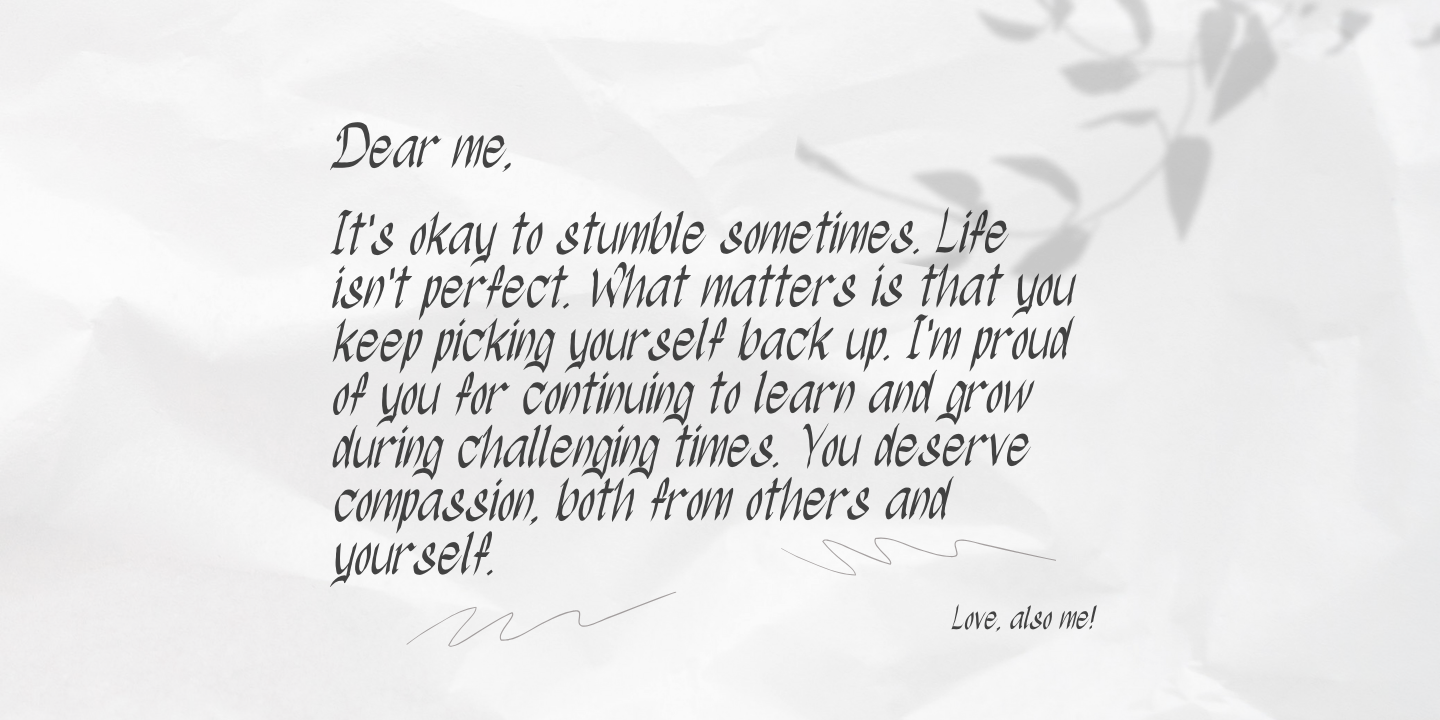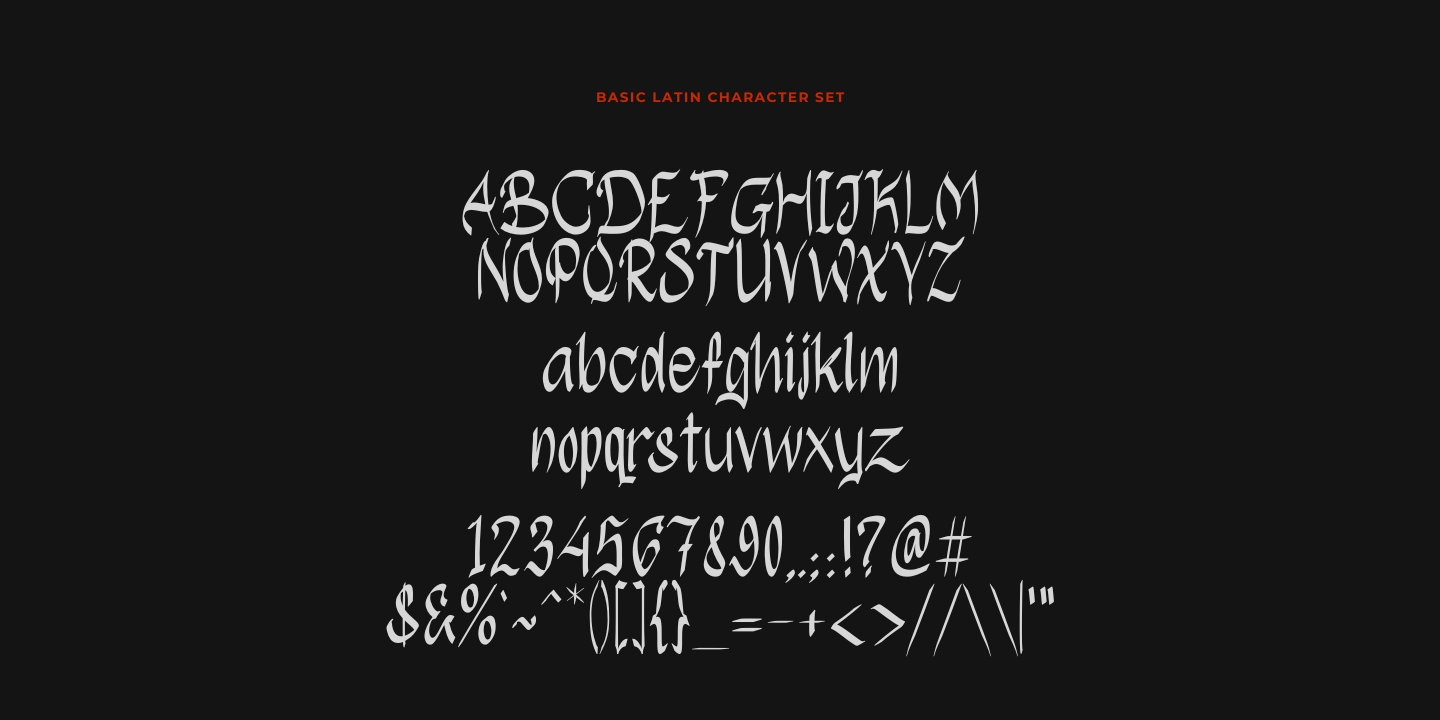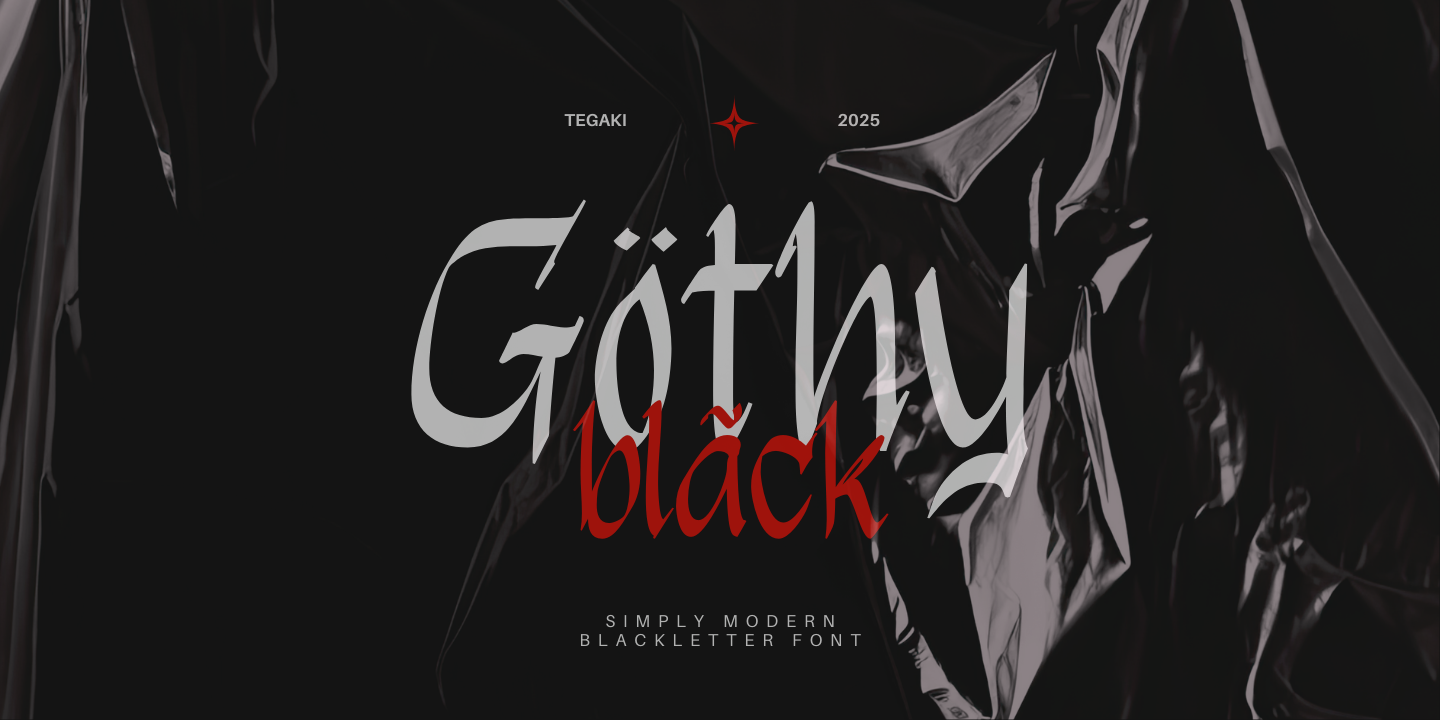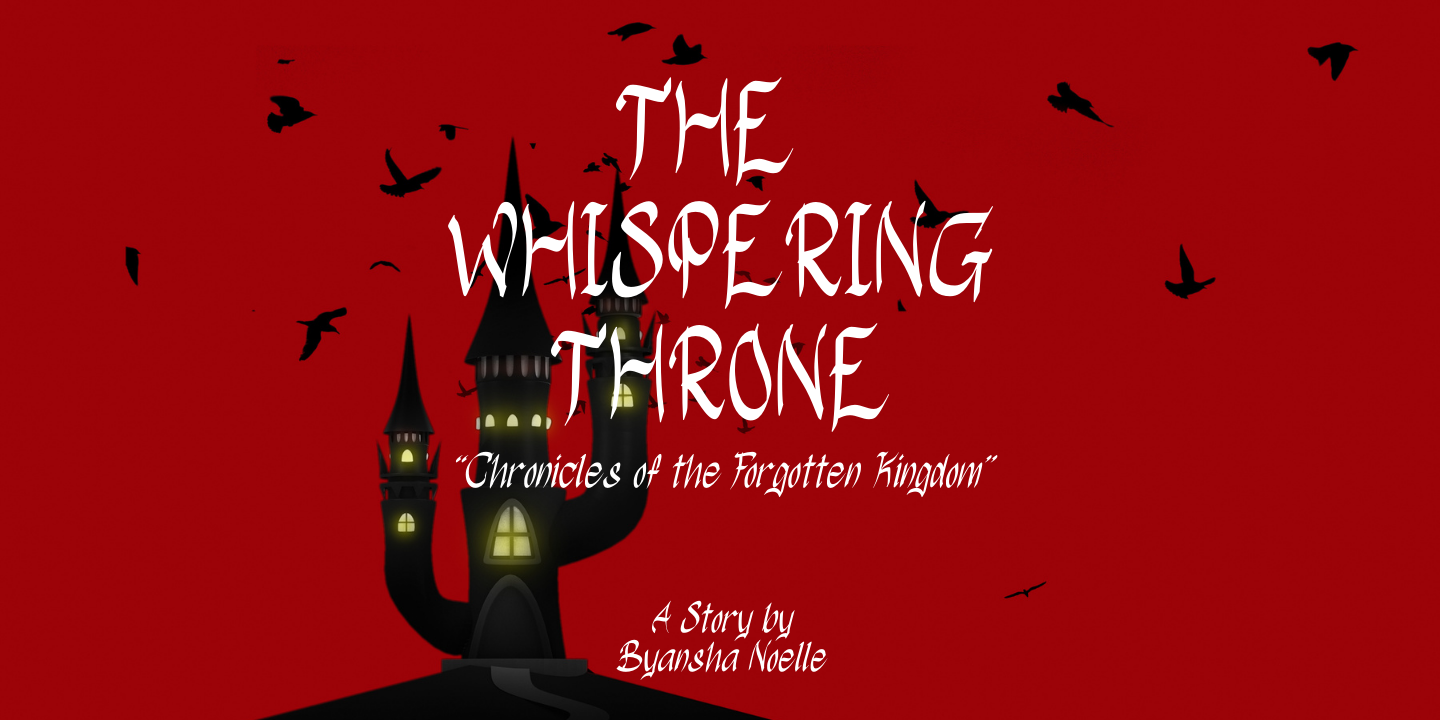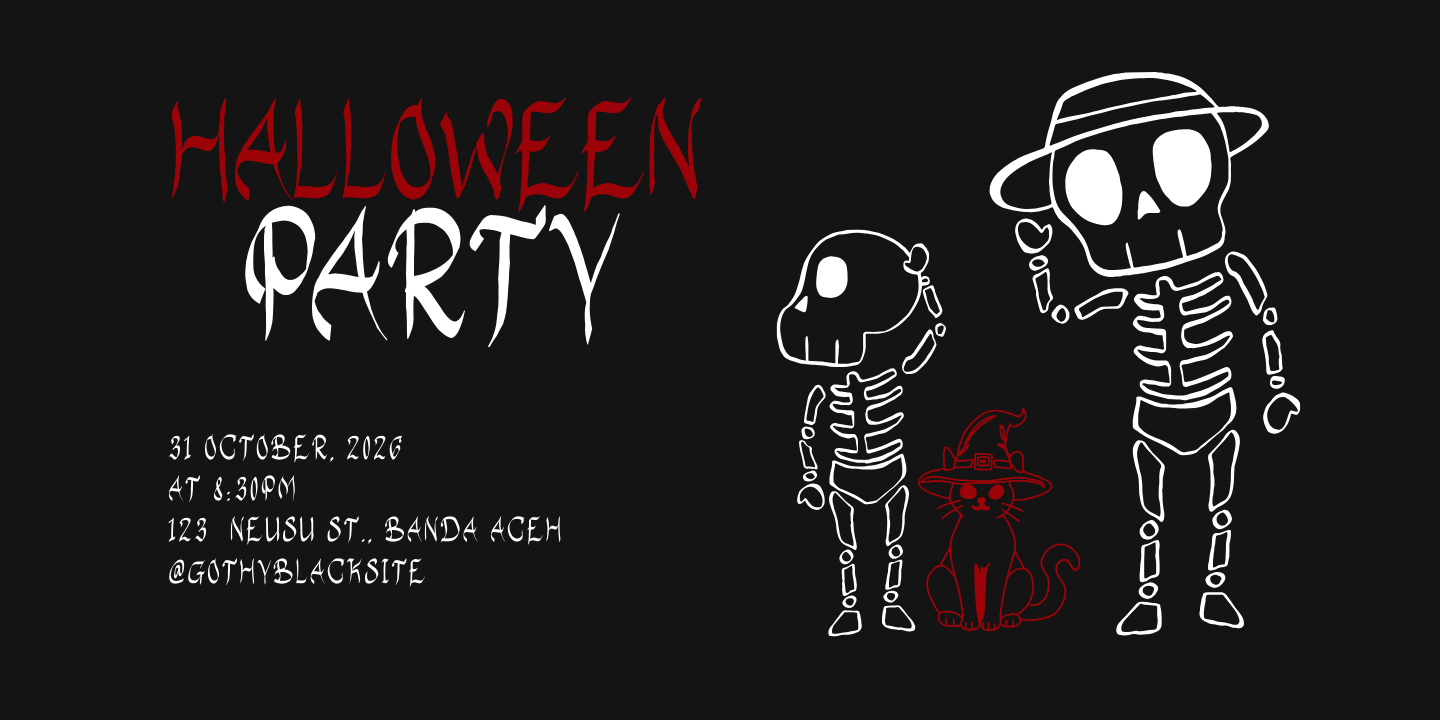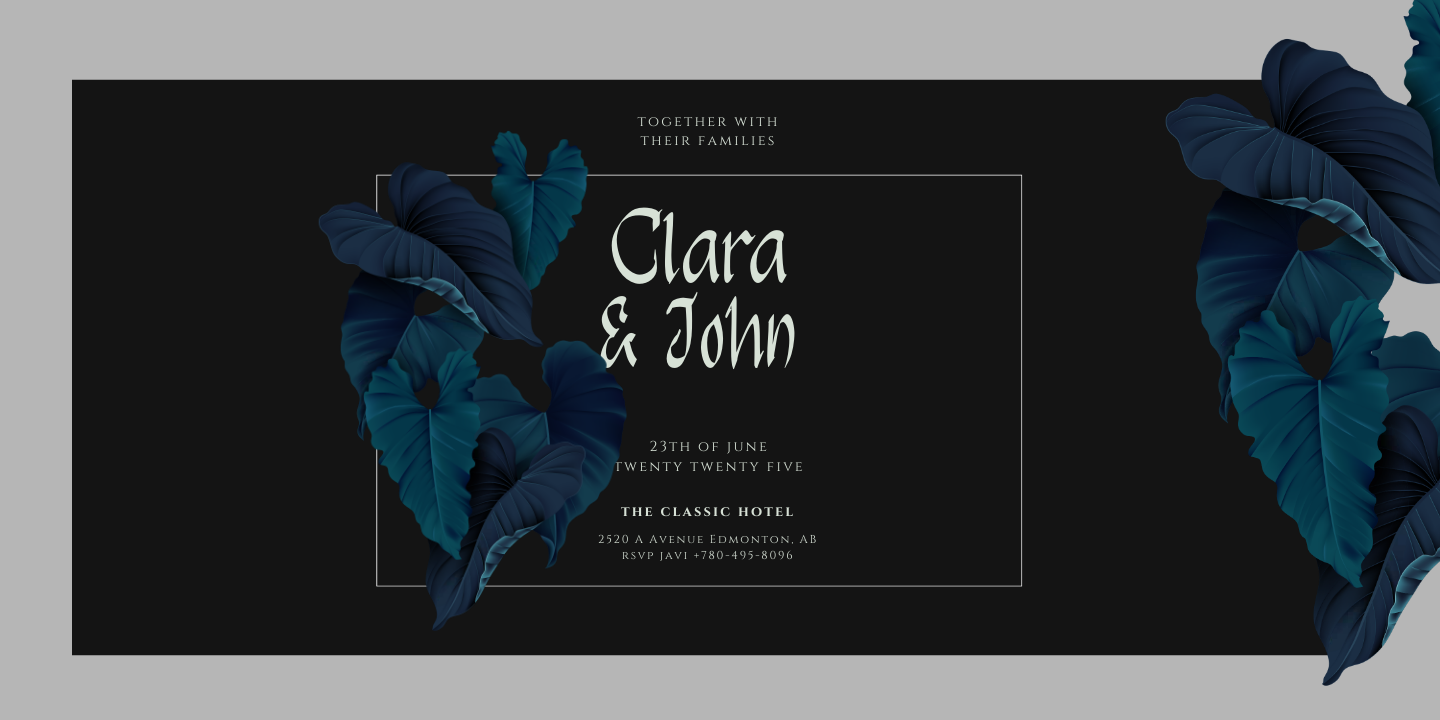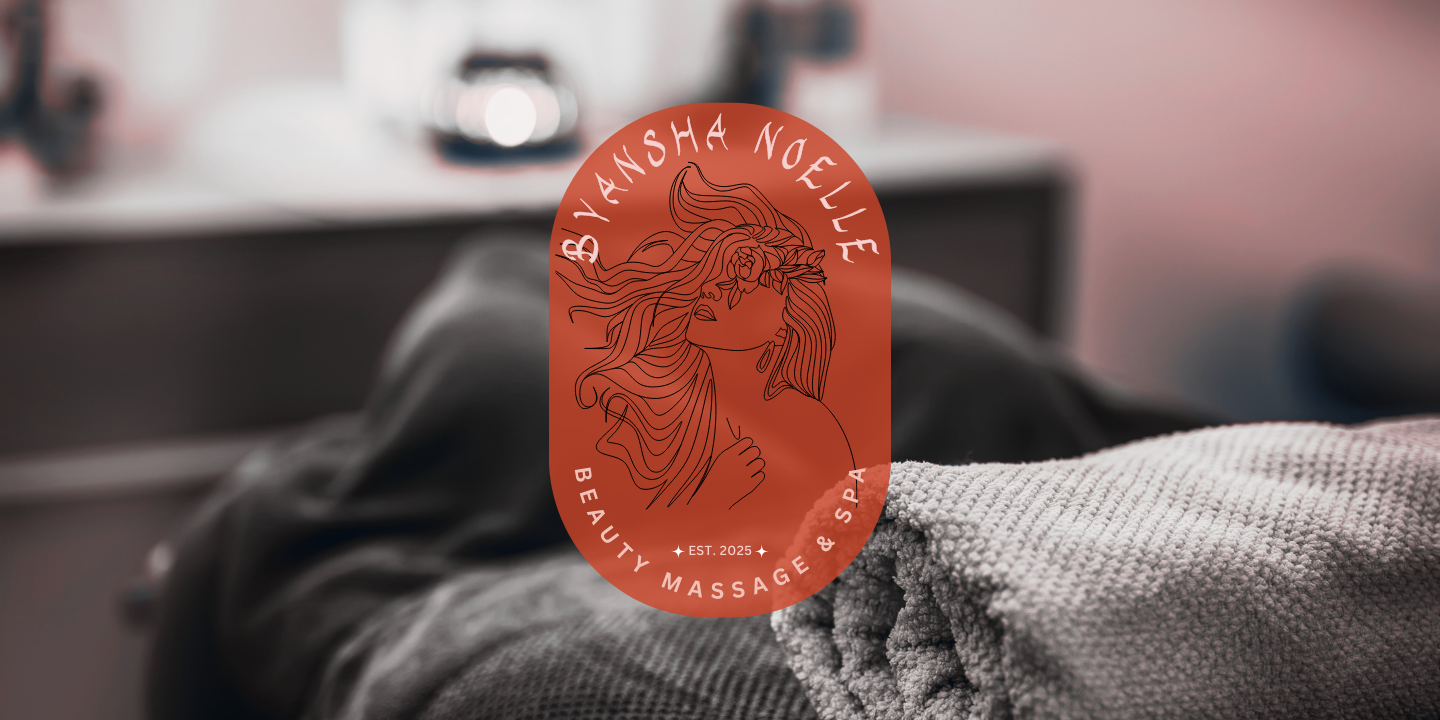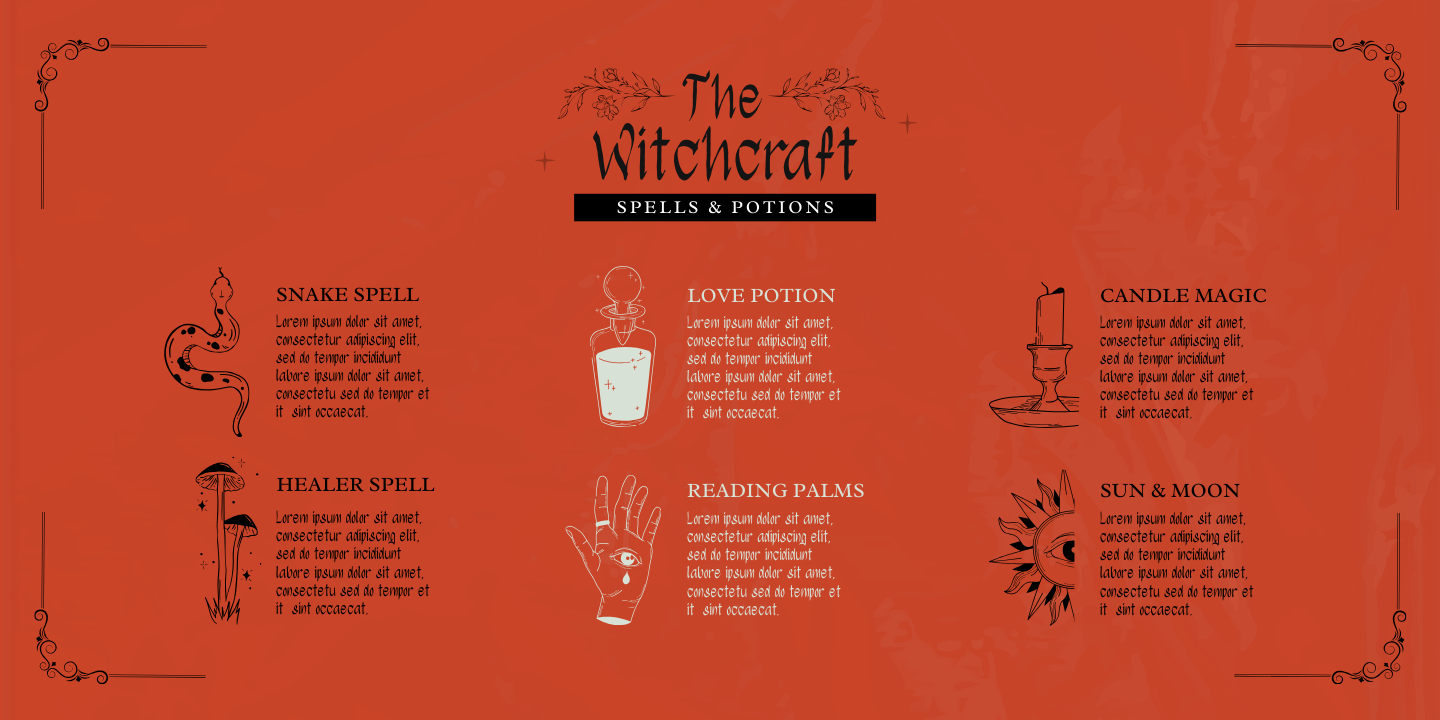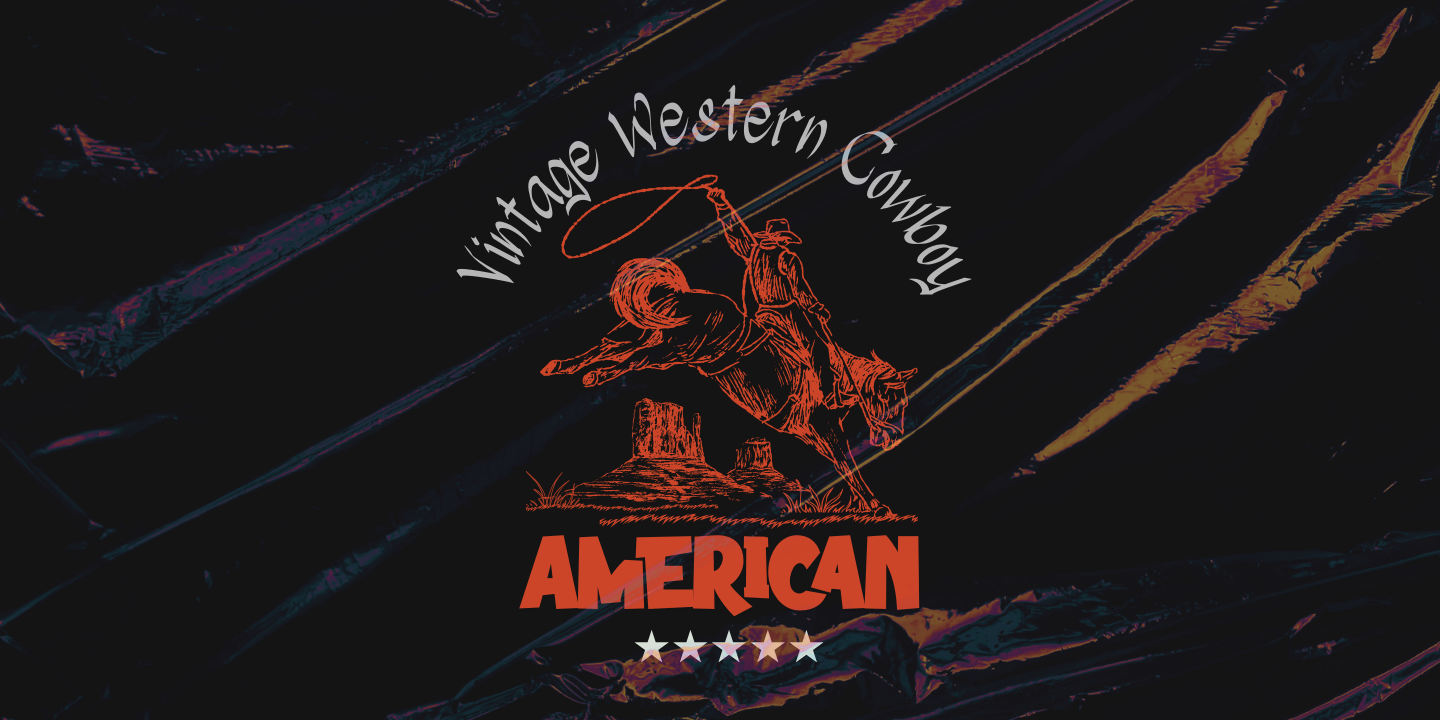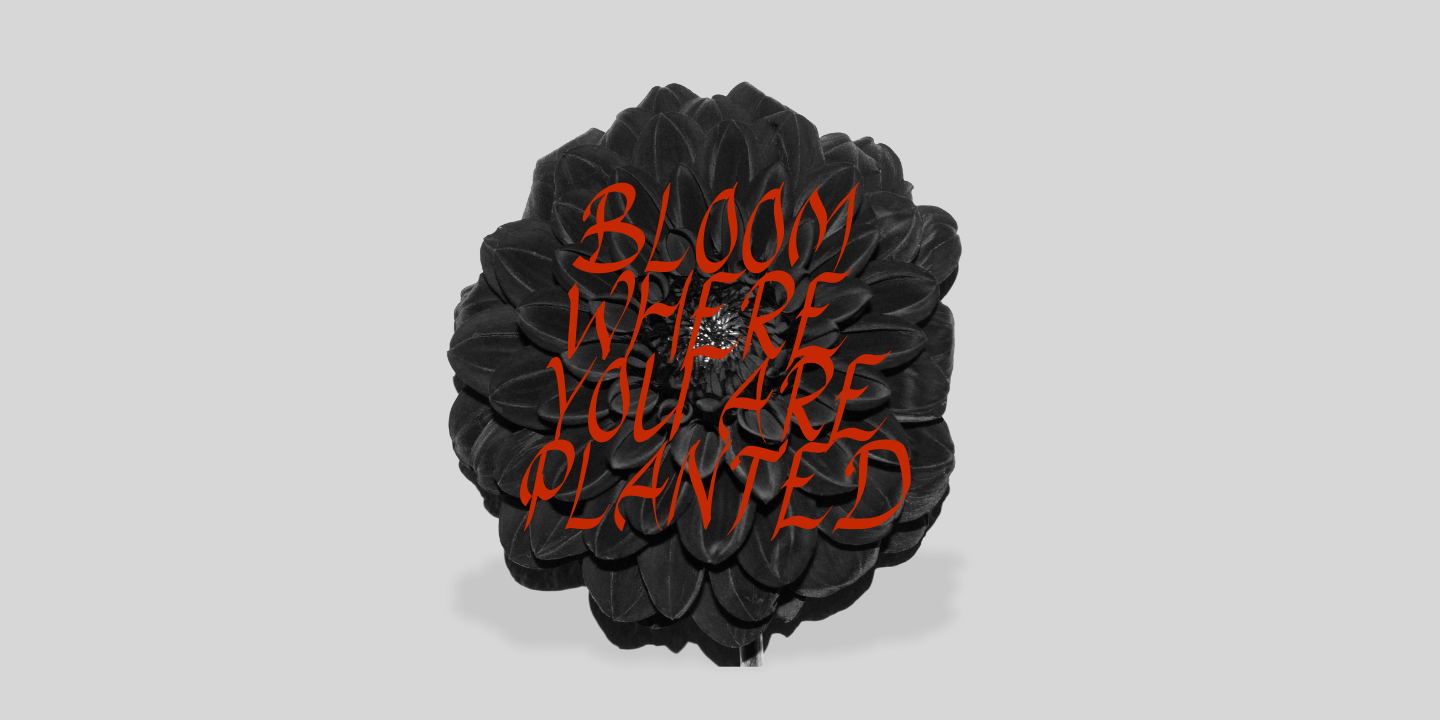
This font is ideal for:
Logos & Branding – Perfect for edgy, bold brand identities.
Posters & Headlines – Creates a striking visual impact.
T-shirt & Merchandise – Adds a cool, gothic vibe to apparel.
Book Covers & Magazines – Great for horror, fantasy, or historical themes.
Social Media & Digital Designs – Enhances aesthetics for Instagram posts, YouTube thumbnails, and more.
Whether you’re designing something dark and mysterious or just want a stylish, unique typeface, Gothy Black is the perfect choice.